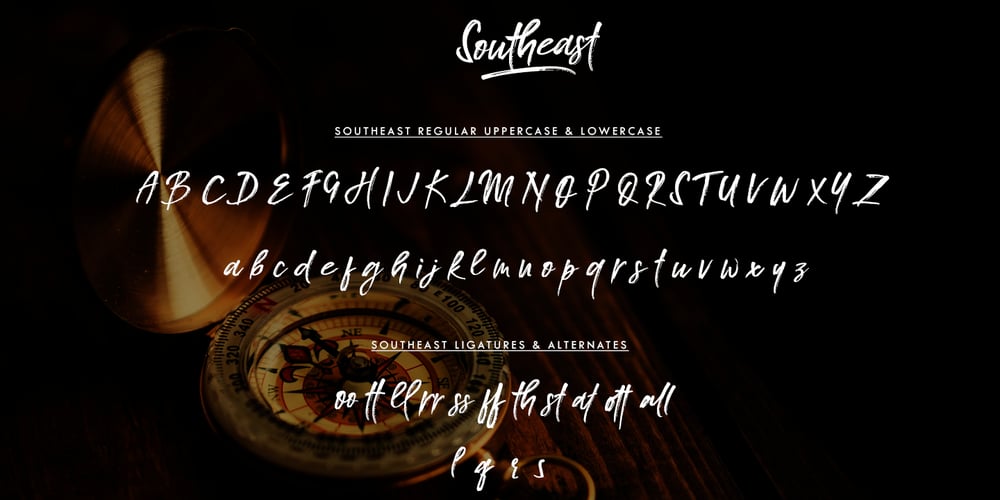
Southeast Font Family was designed by Sarwo Edhi Prayitno and published by Haksen. Southeast contains 2 styles and family package options. “Southeast” The new fresh handmade brush script font. Very suitable for greeting cards, branding materials, business cards, quotes, posters, and more! This font are perfect for all brand 🙂 Features : UpperCase & Lowercase Numerals & Punctuations Ligatures Multilingual characters (AÀÁÂÃÄÅCÇDÐEÈÉÊËIÌÍÎÏNÑOØÒÓÔÕÖUÙÜÚÛWYÝŸŸÆŒßÞàáâãäåæçèéêëìíîïðñòóôõöøùúûüýÿ) PUA ENCODEDZIP INCLUDED: – Southeast OTF – Southeast Swashes OTF Thanks for visited and reviewed. Happy Design, Haksen Letters